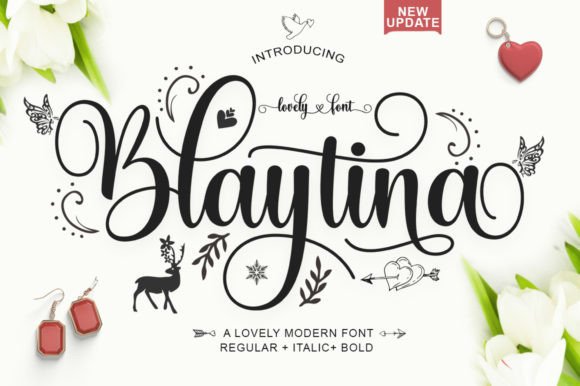
Step into the realm of elegance and sophistication with Blaytina Font—a captivating calligraphy creation from IM Studio that will transform your designs into a visual masterpiece. Inspired by the charm of handwritten notes, Blaytina's characters dance gracefully along the baseline, evoking a sense of romance and tenderness.
Immerse yourself in the world of Blaytina, a script typeface that captures the essence of old-time calligraphy with a contemporary twist. Its delicate strokes and flowing curves lend an air of sophistication to any design, leaving an unforgettable impression on your audience.
With Blaytina, you'll discover the power of versatility. Its romantic charm lends itself perfectly to wedding invitations, greeting cards, and branding materials, while its playful nature adds a touch of whimsy to social media graphics, posters, and packaging designs. The possibilities are endless, allowing you to express your creativity in myriad ways.
Unleash the font's full potential with its extensive glyphs and ligatures, which add an extra layer of charm and personality to your designs. Access these special characters with ease thanks to the font's PUA encoding, ensuring that your creations stand out from the crowd.